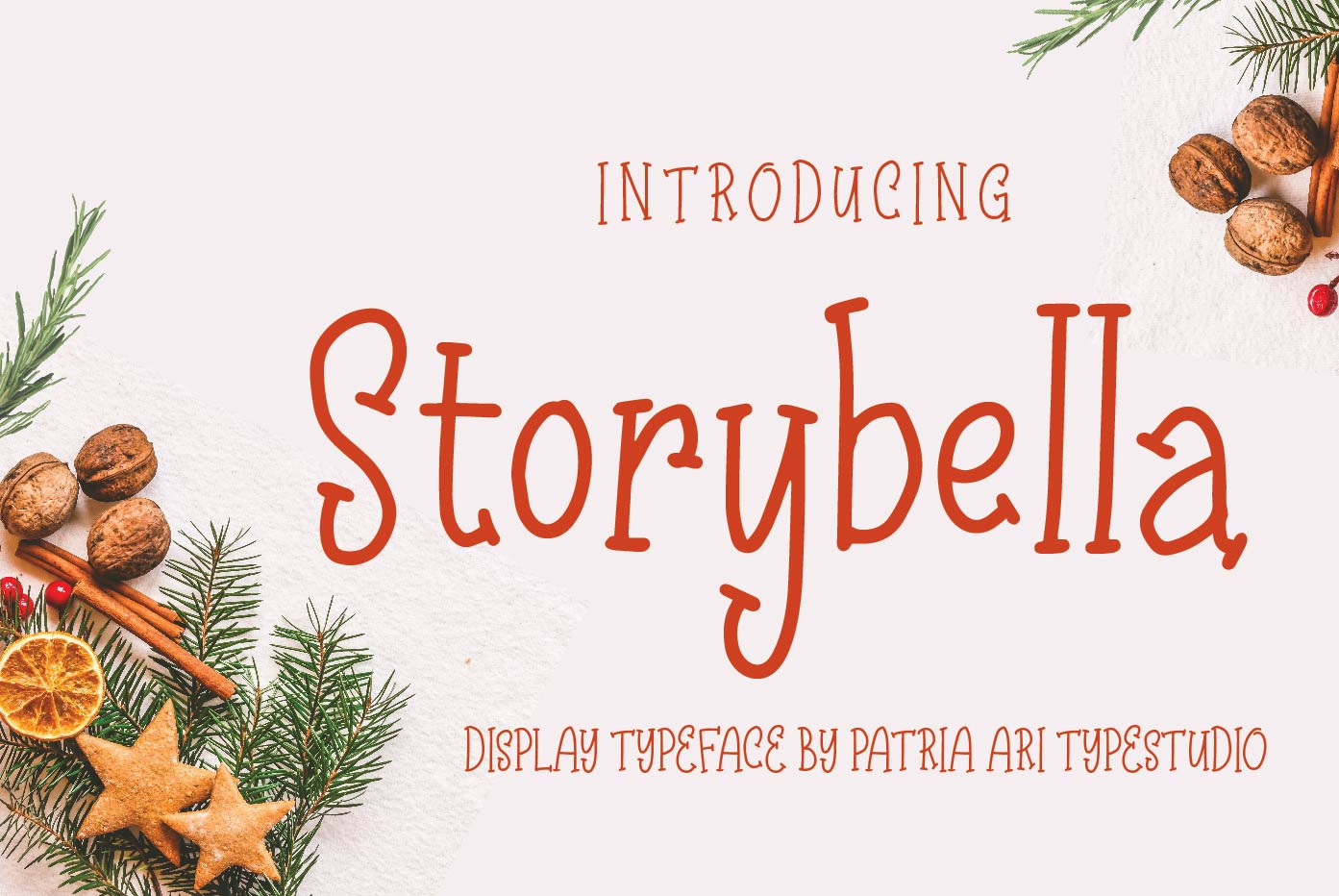
Storybella - Cute Handwritten Fonts
Storybella is a cute and playful slab display serif typeface with some beautiful alternate glyphs.
Storybella is perfect for branding projects, logo, social media posts, advertisements, product packaging, product designs, label, and any projects that you work on.